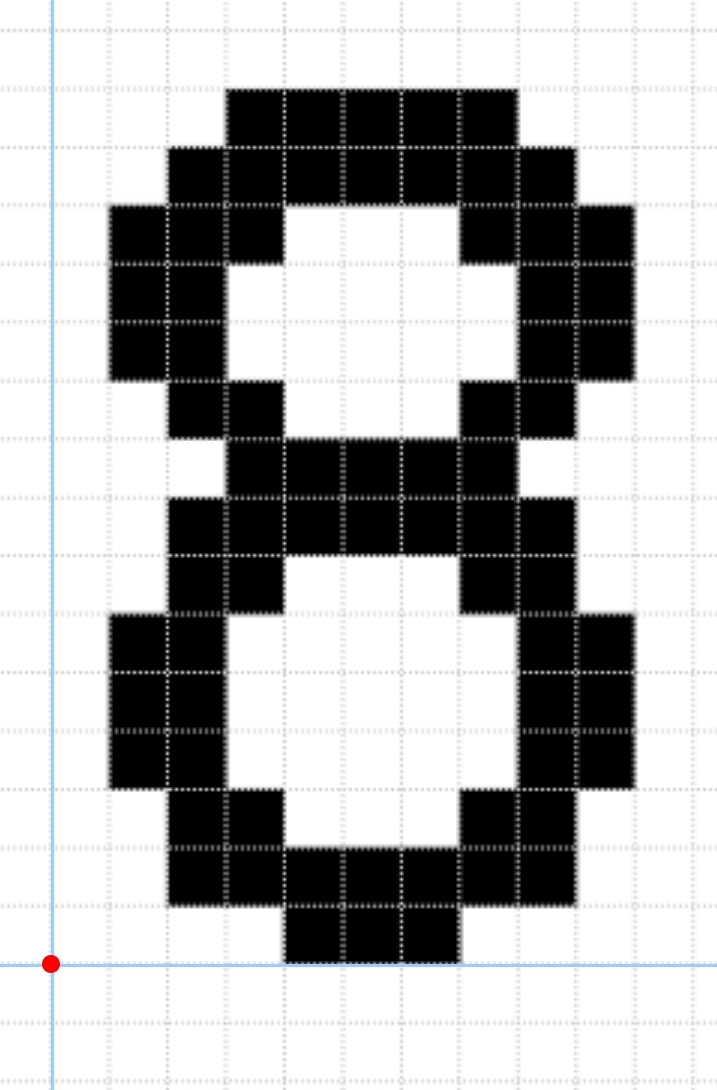
currently in beta testing...
your constructive criticism will help to make the font improve :)
currently adding capital yañalif letters...
designing the 8 is so hard
fun fact: this font is loosely inspired by blokkie
do you guys have any suggestions for 8?